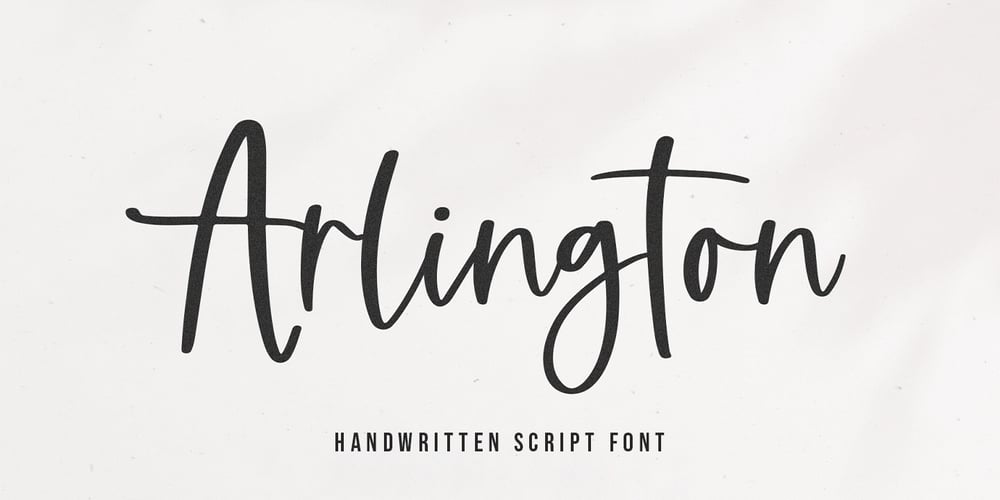
Arlington Script Font Family was designed by Kaitlynn Albani and published by KA Designs. Arlington Script contains 1 styles and family package options. Arlington is a modern script font that boasts an effortless and carefree look! This font is versatile and looks wonderful in many different projects.Use Arlington for logos, branding, wedding decor, cards, signatures, farmhouse decor, advertisements, product packaging and more!This font is sure to turn heads due to it’s authentic handwritten style!